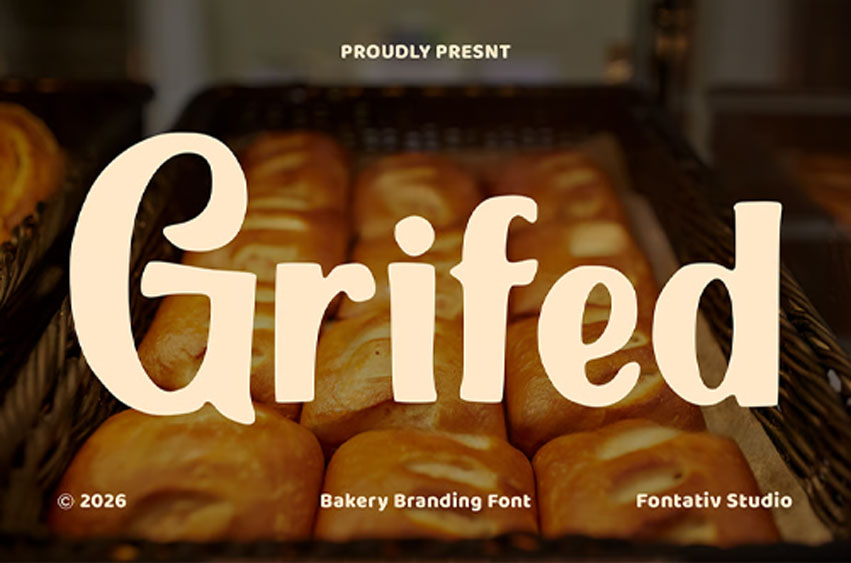
Grifed Font
Grifed Font is a bakery branding font inspired by the warmth of freshly baked goods and the nostalgic charm of traditional bakeries. Featuring bold, playful letterforms with soft vintage influences, this font creates a friendly and inviting personality that is perfect for bakery logos, bread packaging, pastry shops, café branding, menu designs, food labels, posters, and promotional materials. Its distinctive character helps brands stand out while delivering a cozy and handcrafted feel.
With its carefully designed details and strong visual presence, Grifed works beautifully for headlines, product packaging, signage, social media content, and various food-related design projects. The font brings a delicious blend of retro charm and modern readability, making it an excellent choice for businesses seeking a memorable and authentic bakery-inspired identity.